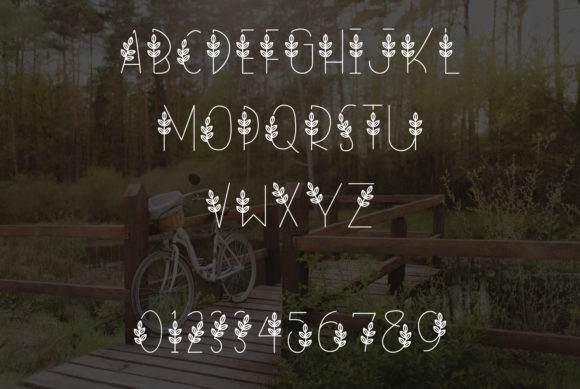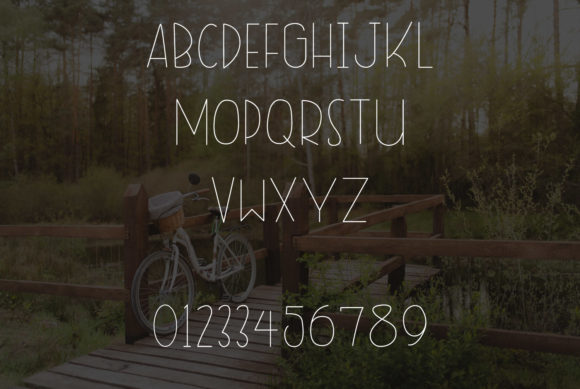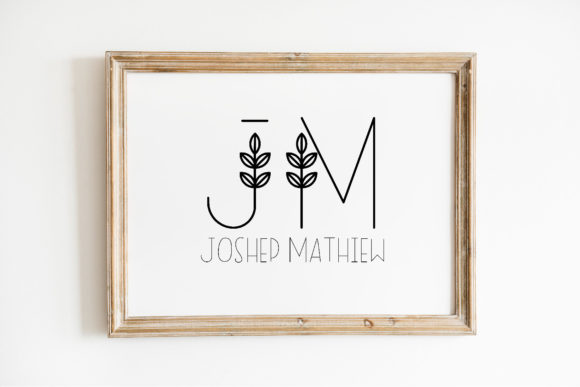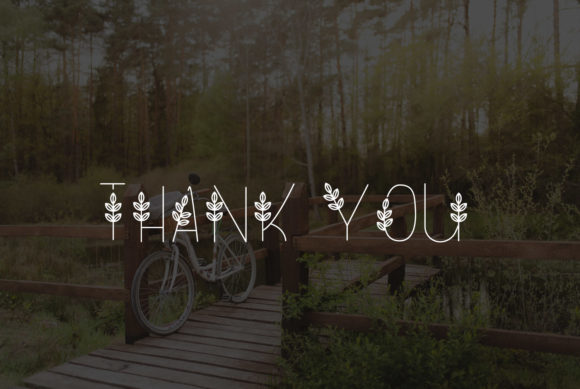
Introduction to Overgrown Font
As I sat surrounded by paint, scissors, and glue, I was inspired by the beauty of spring. The sound of birds chirping and the warmth of the sun peeking through the window made me want to create something that captured the essence of the season. I turned to my computer and began searching for the perfect design resource to bring my creative project to life. That’s when I stumbled upon the gorgeous Overgrown Font.
Its high-quality, leaf-themed style is the perfect fit for any spring-inspired project. With a transparent background, it can be easily layered and customized to fit your unique design needs. As a designer, I can appreciate the value of having a versatile and free download like the Overgrown Font. It’s a game-changer for any project, from digital designs to handmade crafts.
Whether you’re a seasoned designer or a crafty enthusiast, the Overgrown Font is sure to bring a touch of springtime magic to your work. In this article, we’ll dive deeper into the features and benefits of this amazing design resource, so you can unlock its full potential and create something truly special.
Key Features of Overgrown Font
- High-quality design resource perfect for creative projects requiring a unique aesthetic.
- Transparent background, allowing for seamless integration into various design applications.
- Unique, hand-drawn design with intricate details, ideal for adding a personal touch to designs.
- Includes a comprehensive character set, including uppercase and lowercase letters, numbers, and punctuation marks.
- Perfect for designers seeking a high-quality, free design resource for their creative projects.
Honest Review: Overgrown Font
I recently stumbled upon the Overgrown Font, a free download that caught my attention with its unique, organic design. As a designer, I was excited to explore this creative project and see how it could elevate my work.
- ✨ Unique and organic design that adds a touch of whimsy to any project
- ✨ High quality, crisp lines and detailed texture make it perfect for print and digital use
- ✨ Transparent background allows for seamless integration with any design
- ⚠️ Limited font options, which may not be suitable for projects requiring multiple font styles
- ⚠️ Some users may find the organic design too unconventional for certain design styles
Overall, I’m impressed with the Overgrown Font’s potential to add a creative touch to design projects. While it may not be suitable for every design style, its unique design and high quality make it a valuable resource for designers looking to add some personality to their work.
What is Overgrown Font?
Overgrown Font is a high-quality design resource ideal for creative projects that require a unique and eye-catching visual style. This free download offers a transparent background, making it versatile for use in various design applications.
Tips for Getting the Most Out of Overgrown Font
Experiment with different font sizes, colors, and alignments to create unique and visually appealing designs.
Combine Overgrown Font with other design elements, such as images and shapes, to add depth and interest to your projects.
Common Use Cases for Overgrown Font
Use Overgrown Font for creative projects such as:
Graphic design
Typography